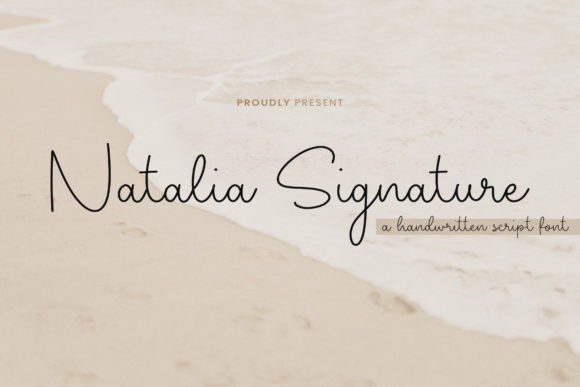
Journey into a world of elegance and sophistication with the Natalia Signature Font, a masterpiece crafted by Timur Type. Step into a realm where your creative visions are transformed into exquisite realities, where every letter exudes luxury and refinement.
Natalia Signature Font is a script font of unparalleled beauty, boasting graceful curves and fluid lines that dance across your designs like a symphony of ink. Its intricate flourishes and delicate details add a touch of enchantment and exclusivity, elevating your projects to new heights of artistic expression.
With Natalia Signature Font, you can effortlessly create custom logos, stunning wedding invitations, and captivating social media posts that radiate an aura of sophistication. Its versatility extends to branding initiatives, where its timeless elegance adds a touch of class and distinction to your company's identity. From brochures and flyers to presentations and marketing materials, Natalia Signature Font weaves its magic, leaving an indelible impression that speaks volumes about your brand's dedication to quality and excellence.
Whether you're a seasoned designer or just starting your creative journey, Natalia Signature Font is the perfect companion for your projects. Its user-friendly nature makes it accessible to all skill levels, allowing you to unleash your creativity without boundaries. Join a community of passionate designers who have discovered the transformative power of Natalia Signature Font and witnessed its ability to elevate their work to extraordinary levels.
Embark on a journey of artistic exploration and elevate your designs to new realms of elegance with Natalia Signature Font. Discover the allure of luxury and sophistication as you transform your creative visions into breathtaking masterpieces. Embrace the artistry, exclusivity, and timeless beauty that Natalia Signature Font brings to your projects.